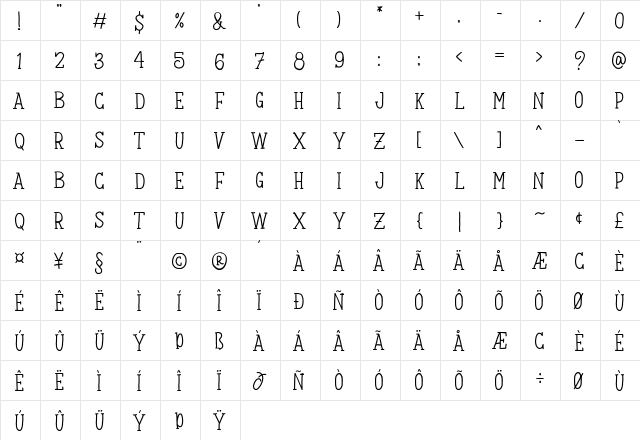
Kulon Regular Font Preview
Kulon Regular
Kulon Regular Font Details
| Foundry | Letterhend Studio |
| Designer | Letterhend Studio |
Design Context for Kulon Typeface
Kulon takes a measured approach to typography — its balanced proportions and neutral character make it a reliable workhorse for both digital and print work.